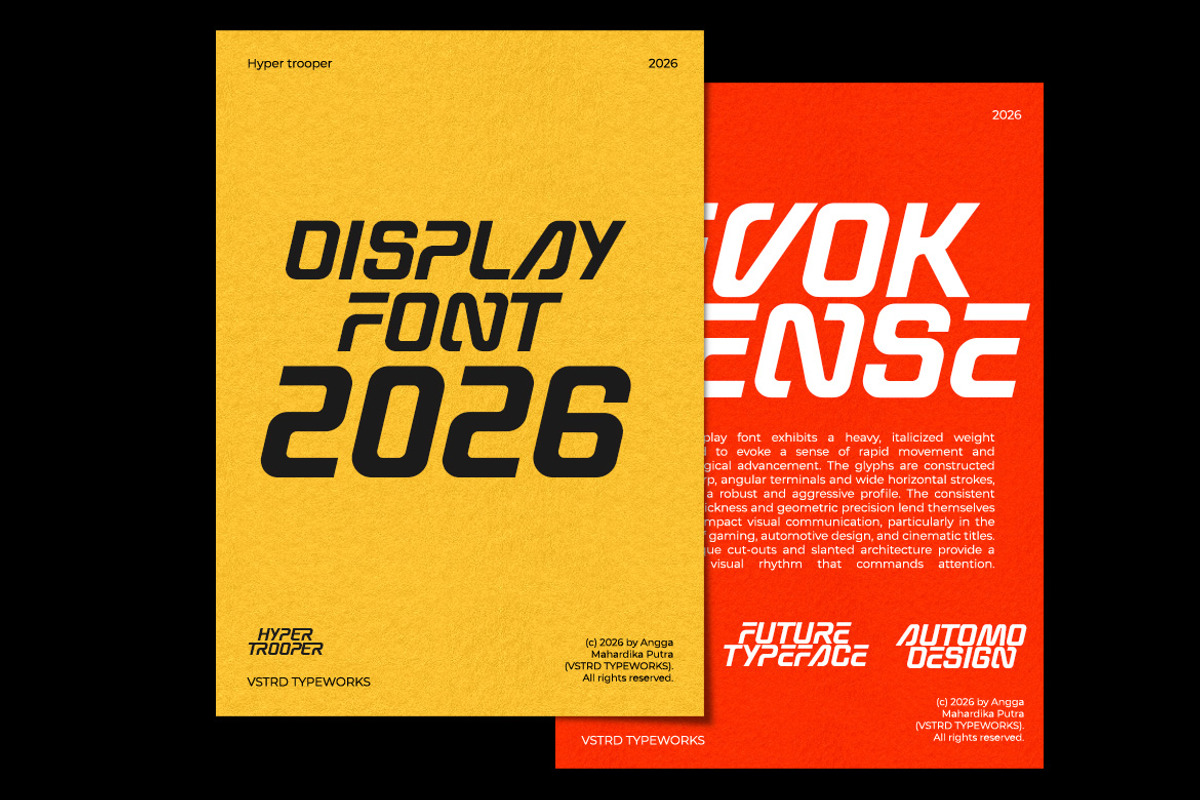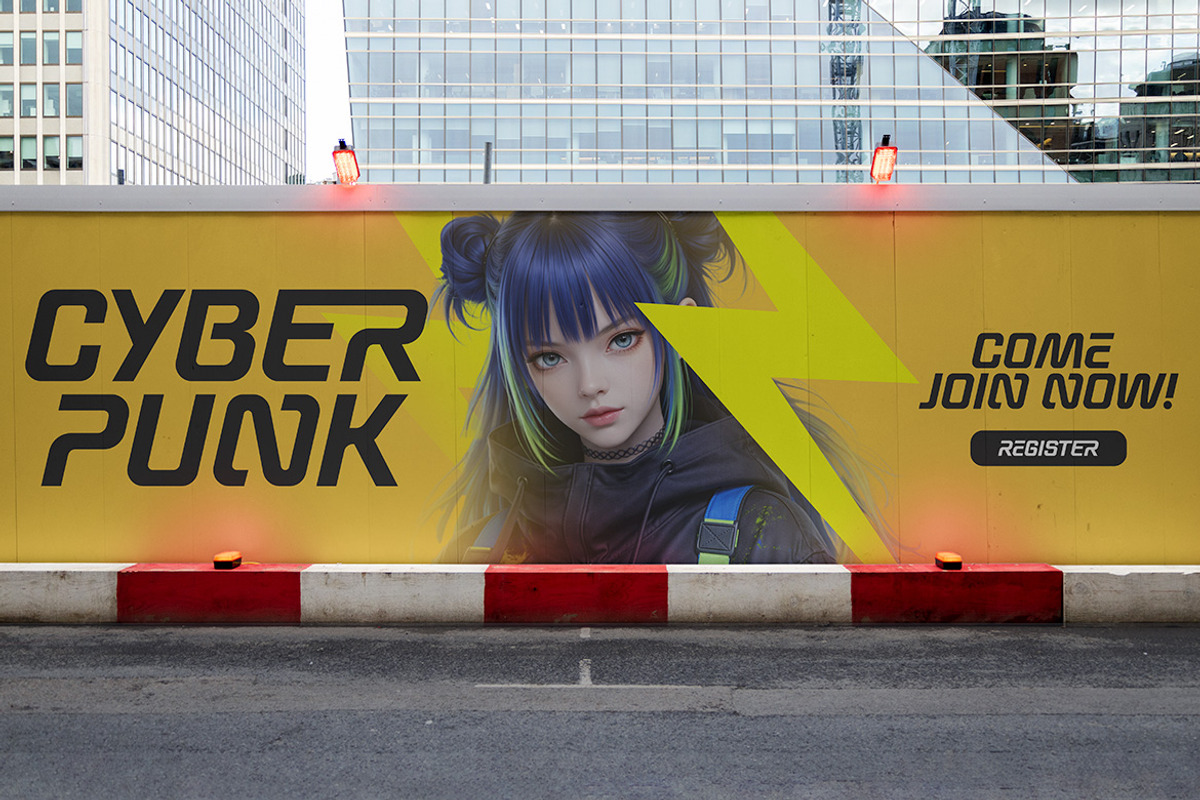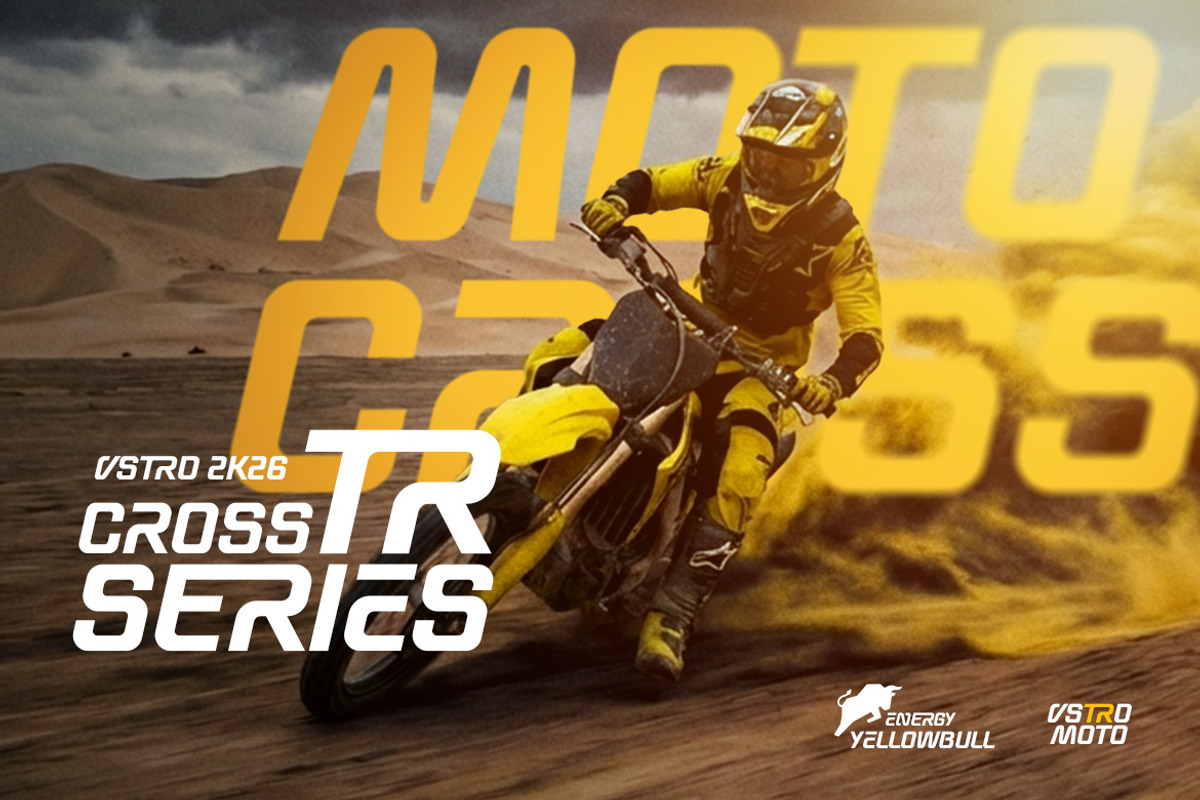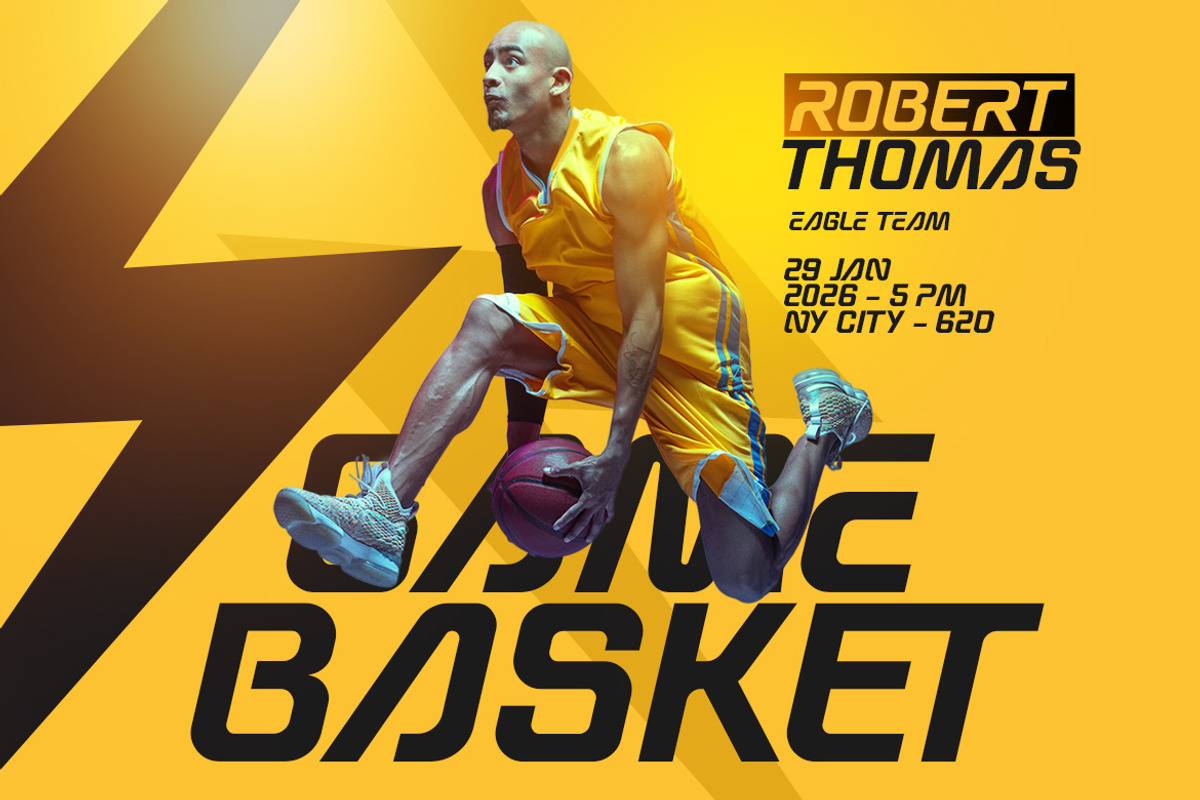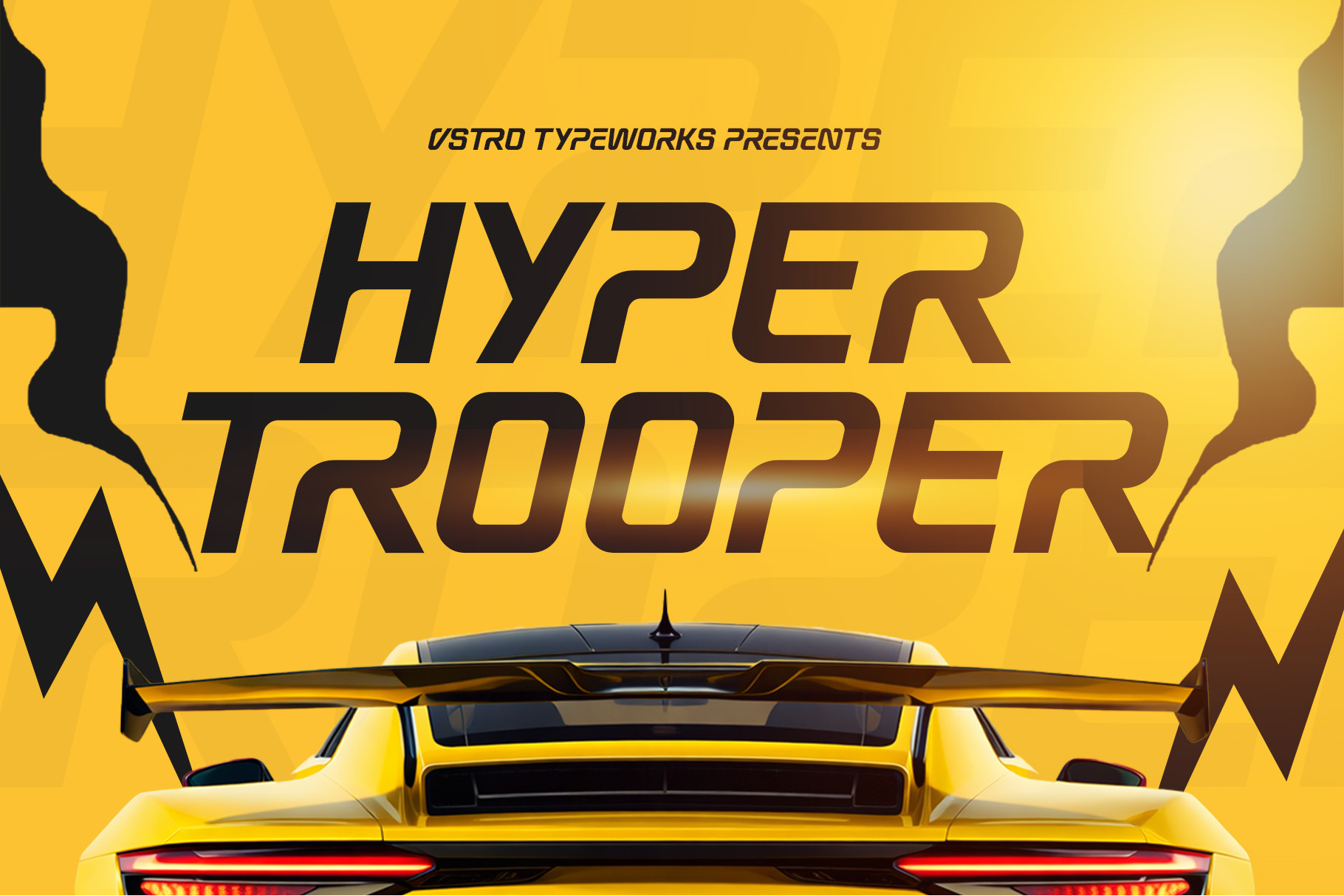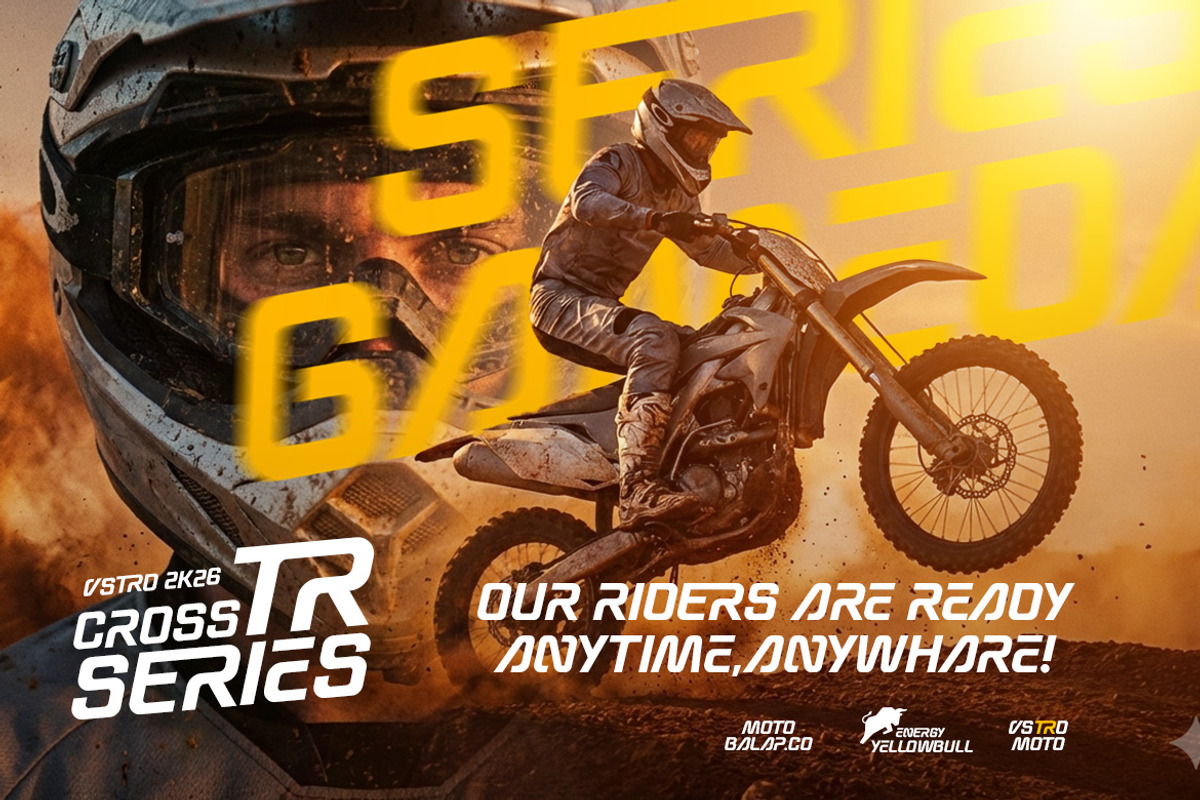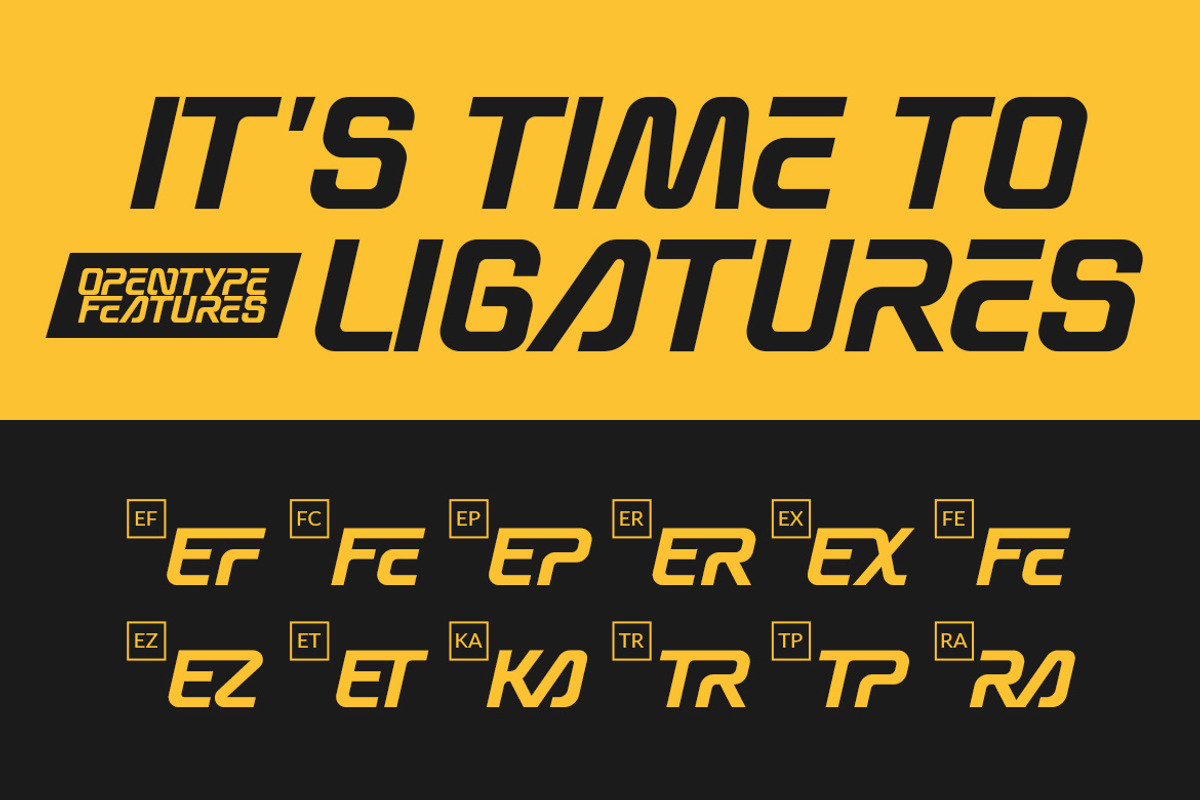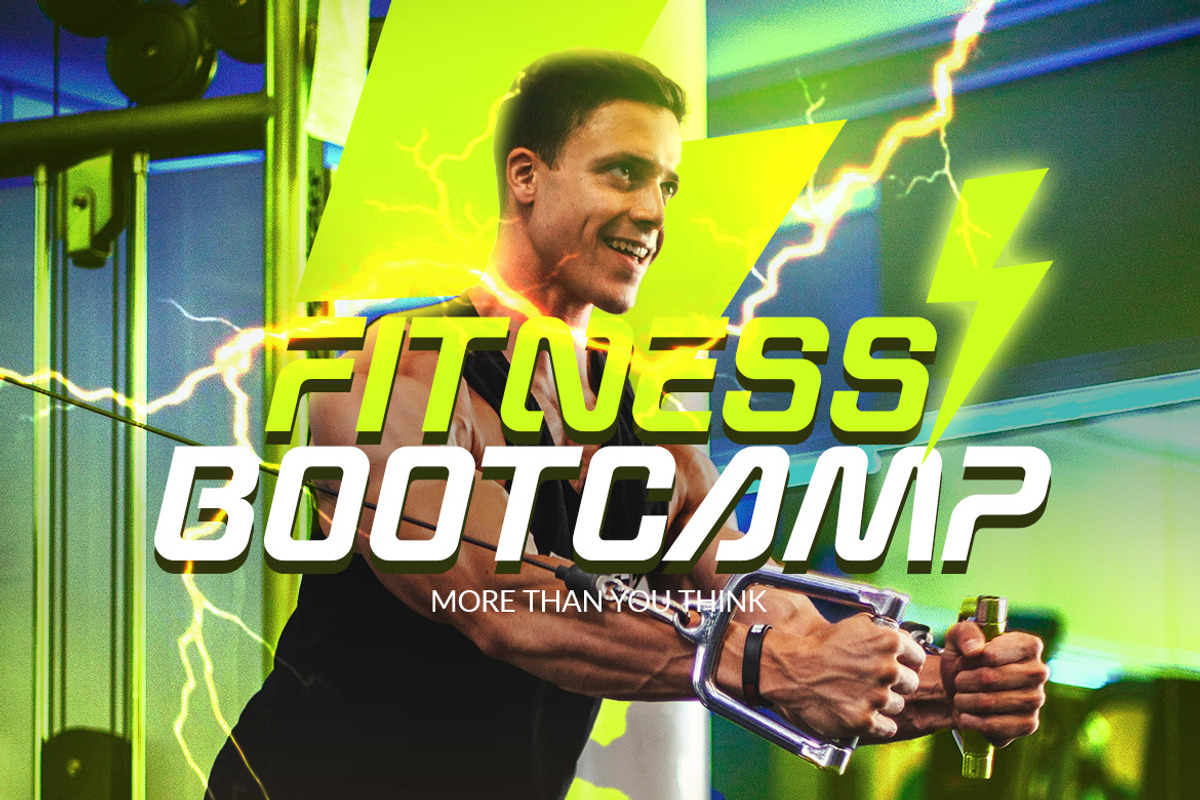
Hyper Trooper - Sport and Tech Font
Hyper Trooper is a bold, futuristic typeface built for speed, power, and precision. With sharp angles, dynamic curves, and a high-performance attitude, it delivers an instant adrenaline boost to any design. Perfect for sports branding, esports, automotive graphics, tech posters, fitness campaigns, and high-energy headlines. Engineered to stand out. Designed to dominate. Hyper Trooper pushes your typography into overdrive. Includes powerful ligatures for maximum impact.
- All Caps Uppercase & Lowercase